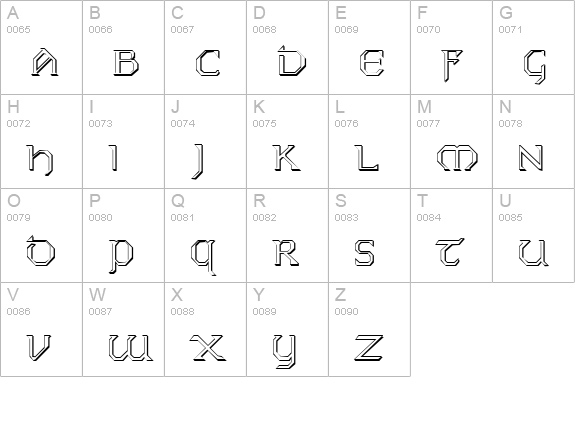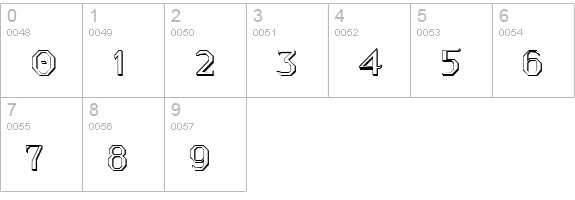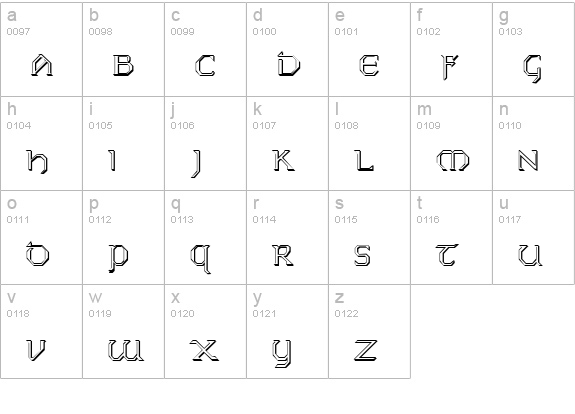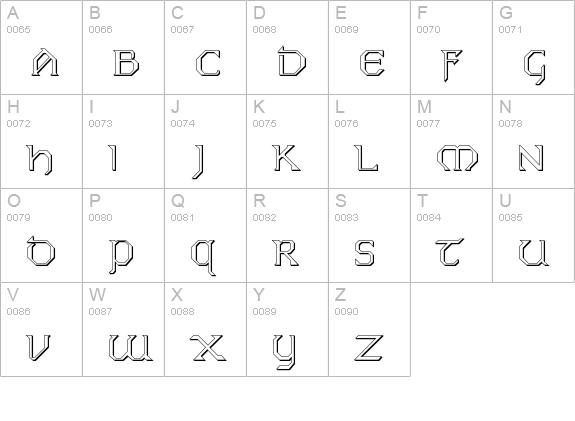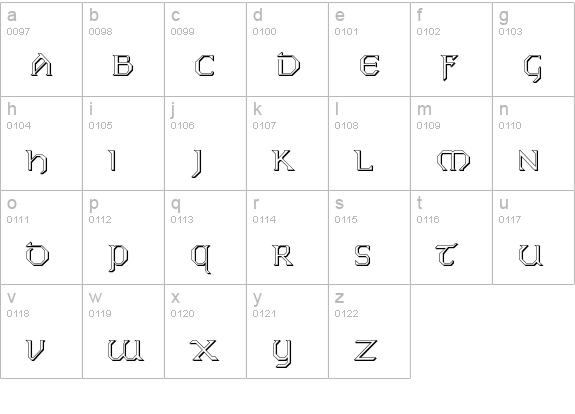
Wartburg Font Details
Wartburg font is a beautifully crafted typeface that exudes elegance and sophistication. Its timeless design features graceful curves and sharp edges, making it perfect for a wide range of creative projects. Whether you're designing a wedding invitation, a logo, or a website, Wartburg font will add a touch of class to your work. What sets Wartburg font apart is not only its stunning aesthetics but also the fact that it is available for free. That's right, you can download this exquisite font at FontsMarket.com without having to spend a dime. This makes it an ideal choice for designers and creators looking to elevate their projects without breaking the bank. With its classic yet modern appeal, Wartburg font is sure to make a lasting impression on anyone who sees it. So why wait? Download this exceptional font today and take your designs to the next level.